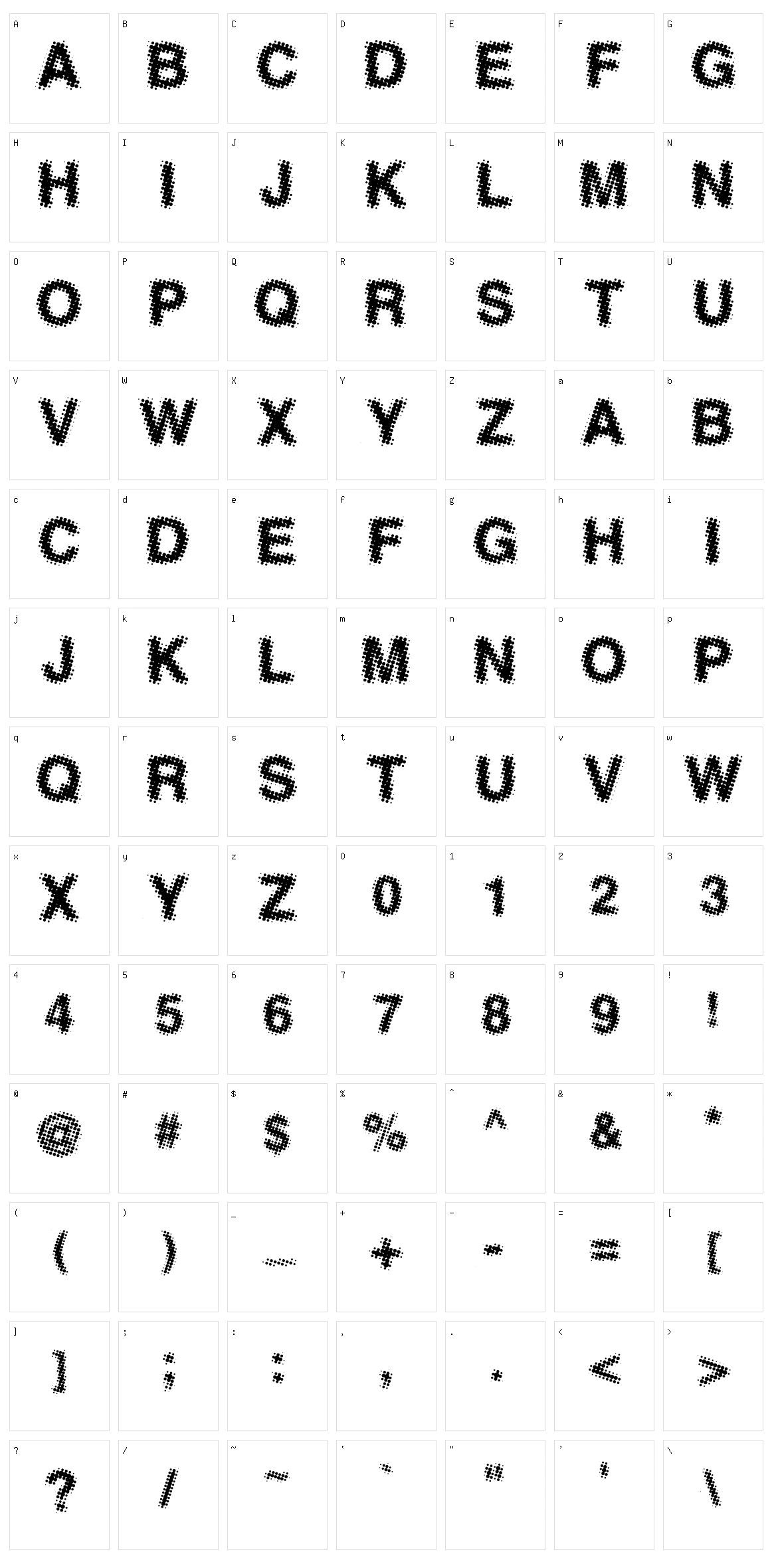
The free font Antfarm is carefully designed by Vinterstille TypeFaceLab, showcasing a thoughtful balance of creativity and usability and falls under the Distorted font style. When you download the ZIP file, it contains only 109.52 KB of font files, making it lightweight and quick to download. Please review the license details below to understand permitted usage and distribution rights. If license information is not available, we recommend using this font for personal projects only or contacting the author directly for commercial usage permissions.